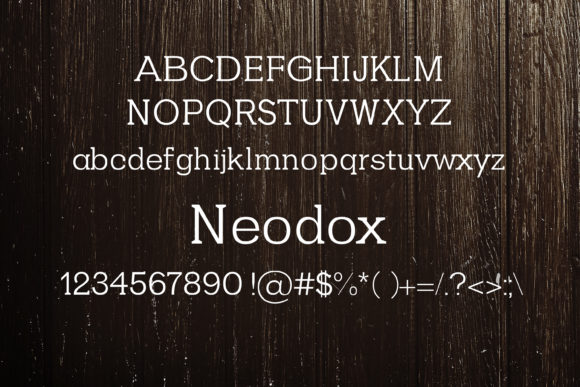
Introduction to Neodox Font Font
Fonts play a crucial role in design, and the Neodox Font font is a typeface that brings both character and versatility to any project. Whether you’re working on a branding project, a website, or a print design, the Neodox Font font offers a unique style that can elevate your work.
Neodox is a cool and fun serif font that will add a bold feel to any design project.
Neodox is a cool and fun serif font that will add a bold feel to any design project!
Key Features of Neodox Font Font
Why Choose Neodox Font Font?
The Neodox Font font is more than just a typeface – it’s a design tool that helps you communicate your message with style and clarity. Its unique character set and versatile design make it suitable for a wide range of applications, from elegant invitations to bold headlines.
With its carefully crafted letterforms and balanced proportions, the Neodox Font font ensures readability and visual appeal across all mediums.
What makes Neodox Font font special?
The Neodox Font font stands out with its unique design, exceptional readability, and versatility across various design applications.